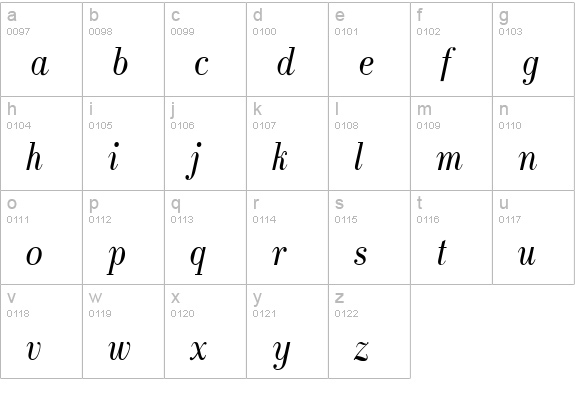
Recital SSi Italic is a distinctive, italic variant in the Recital typeface family \xE2\x80\x94 well suited to design and typography projects.
Recital SSi Italic font is a beautifully crafted and elegantly designed typeface that exudes grace and sophistication. Its italicized form adds a touch of elegance and charm to any project or design. With its flowing curves and stylish letterforms, this font is perfect for adding a touch of class to invitations, wedding stationery, logos, and more. One of the most appealing aspects of Recital SSi Italic font is that it is freely available to download at FontsMarket.com. This means that designers and typographers can easily access this stunning font without any cost. The fact that it is free makes it an even more attractive option for those seeking a high-quality, professional font without breaking the bank. Whether you are a graphic designer, a web developer, or a creative professional, Recital SSi Italic font is sure to impress. Its unique and distinctive style will make your designs stand out from the crowd and leave a lasting impression on your audience. With its versatility and timeless appeal, this font is a must-have addition to any designer's toolkit. Download Recital SSi Italic font for free at FontsMarket.com and unlock the potential of your designs. Experience the beauty and elegance of this typeface and take your projects to new heights. Don't miss out on the opportunity to enhance your creations with this stunning font. Embrace the freedom to create with Recital SSi Italic font and let your imagination soar.